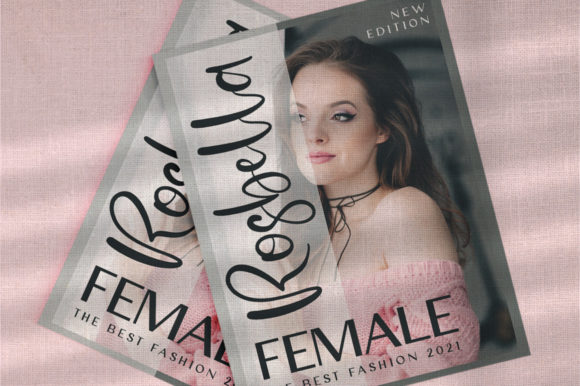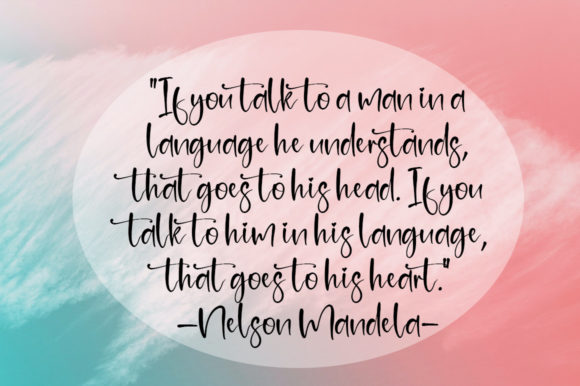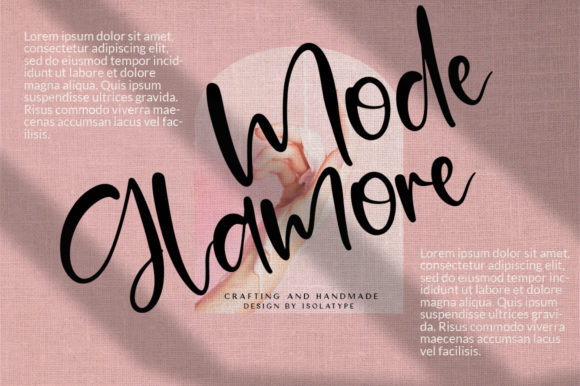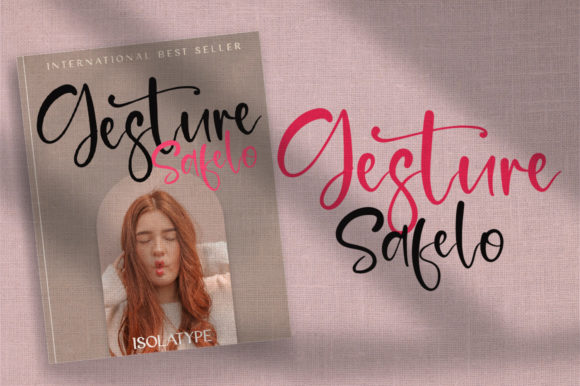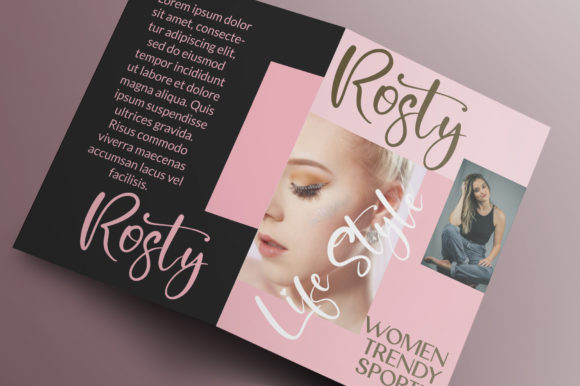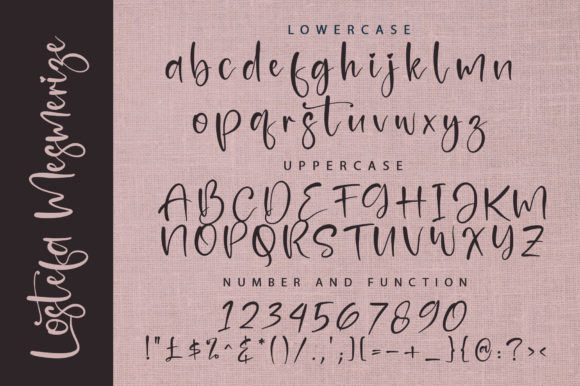
Introduction to Lostefa Mesmerize Font
Lostefa Mesmerize is a lovely and delicate script font that exudes elegance and class.
This font was particularly crafted for those who need a beautiful and refreshing look to their designs .
Key Features of Lostefa Mesmerize Font
Why Choose Lostefa Mesmerize Font?